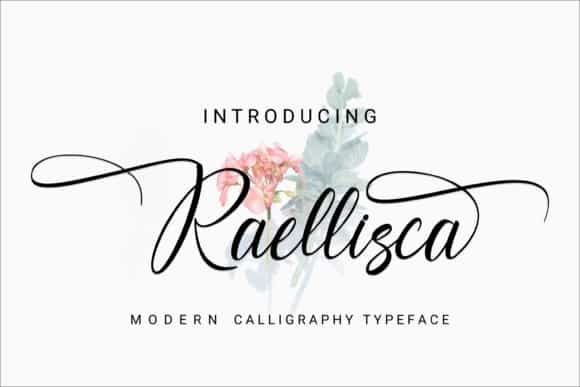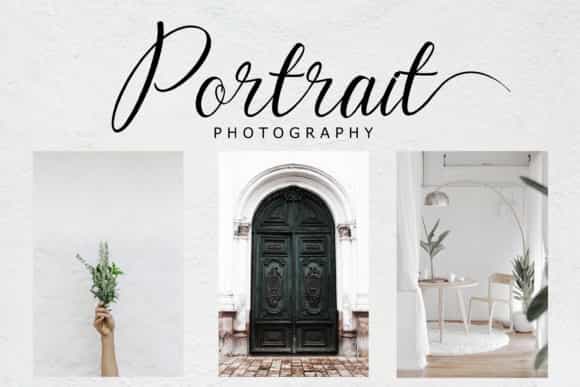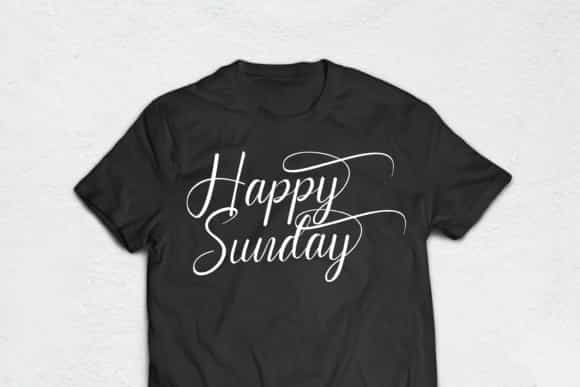
Raellisca Font is a font collection that more of alternate glyphs and some Ornament. Set of fonts which are created to harmonize one another in their utilization. Raellisca Font will work great for logo design, t-shirts, flyers, apparel, packaging, advertising, Wedding Invitation etc.